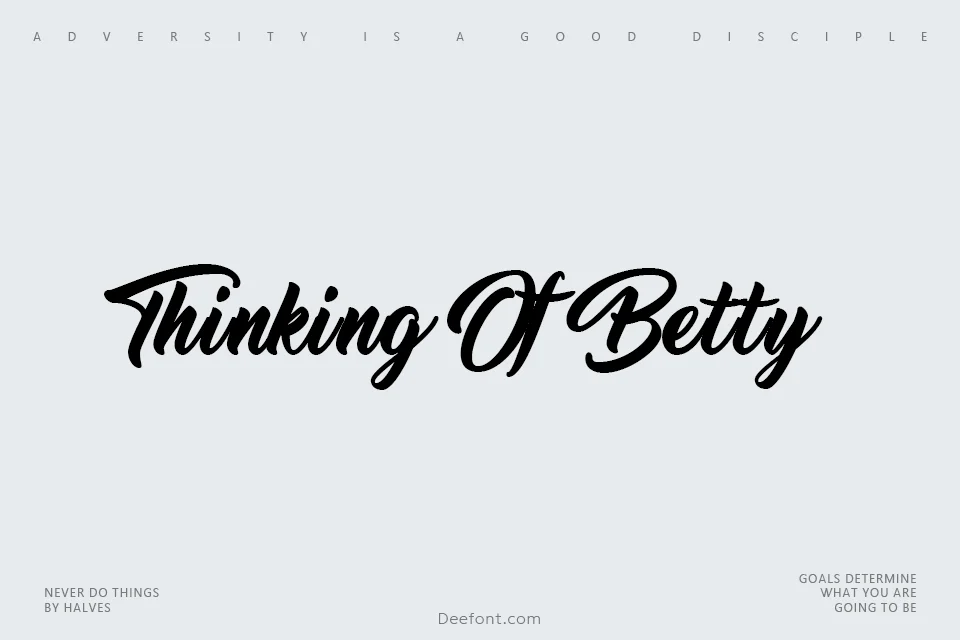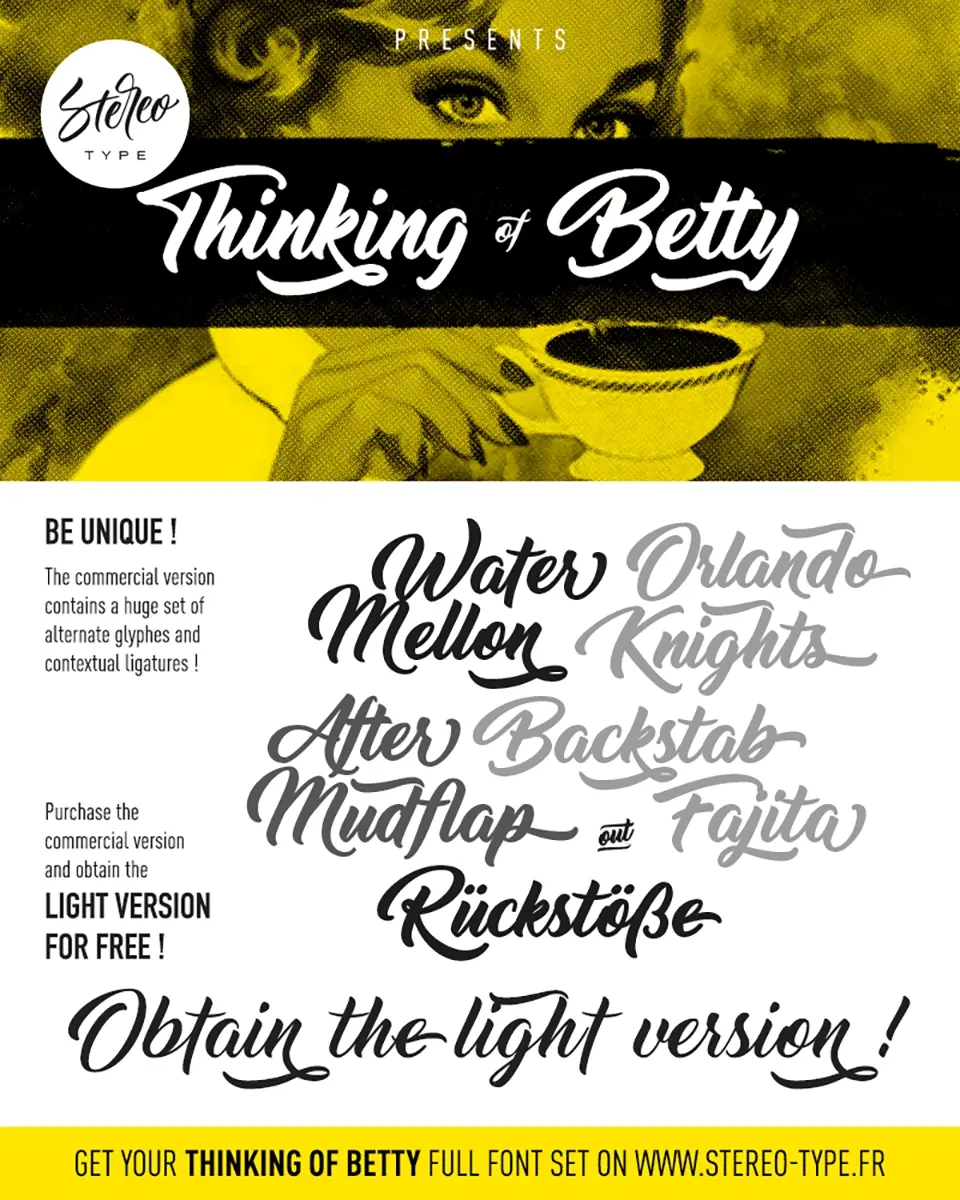
Thinking Of Betty Font
Thinking Of Betty is a bold script brush font characterized by flowing, cursive letters that mimic the fluidity of handwriting. This expressive typeface features over 205 defined characters and 169 unique glyphs, making it ideal for logos, headlines, packaging, and posters. The font displays a playful and creative style suitable for designers seeking to add personality and elegance to their projects. Perfect for creative typography applications.